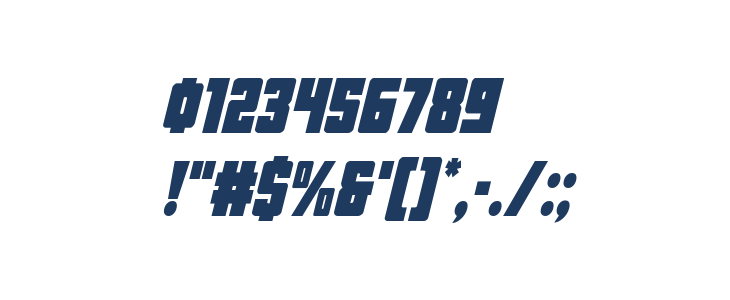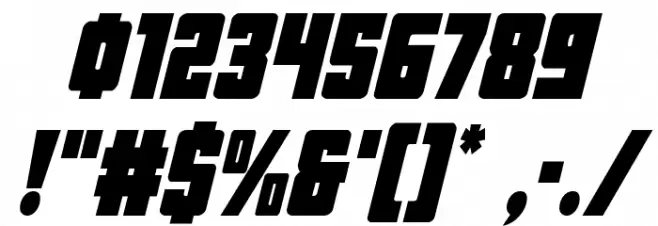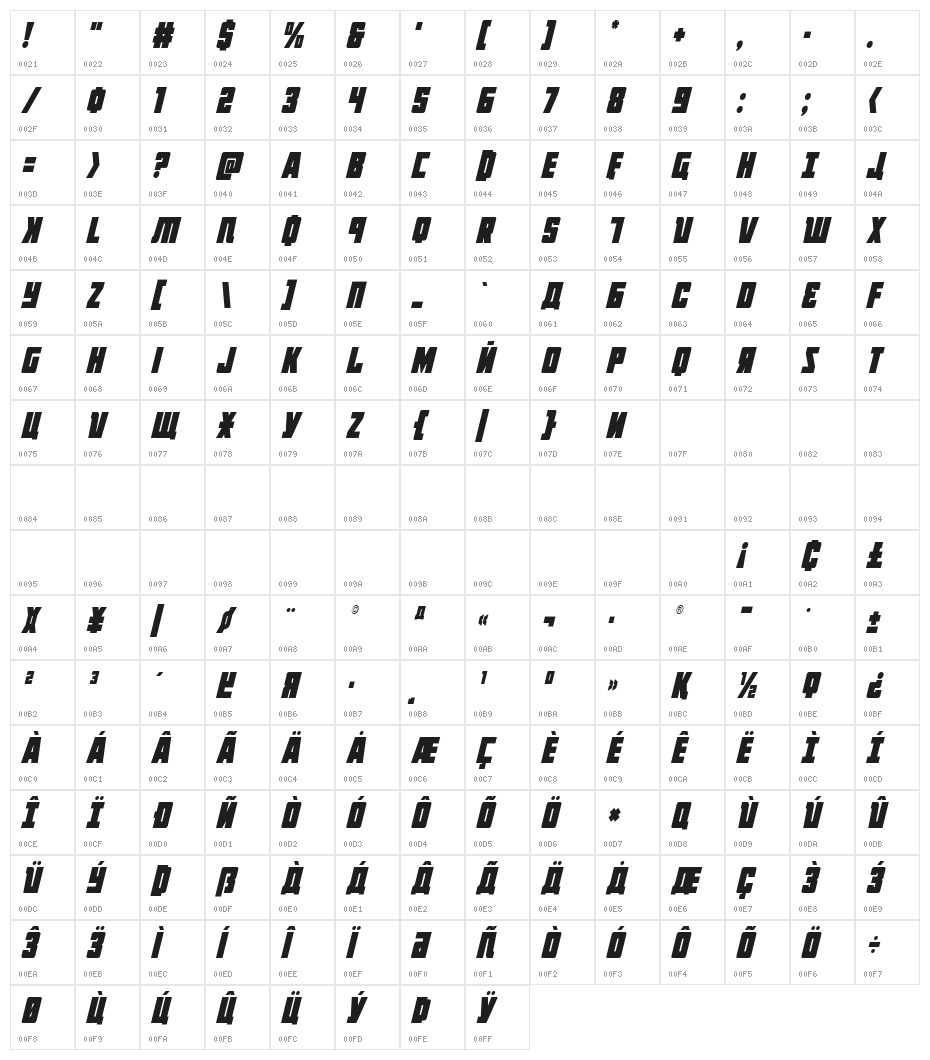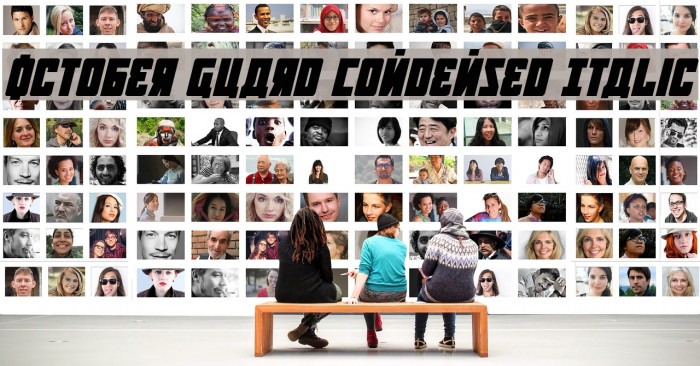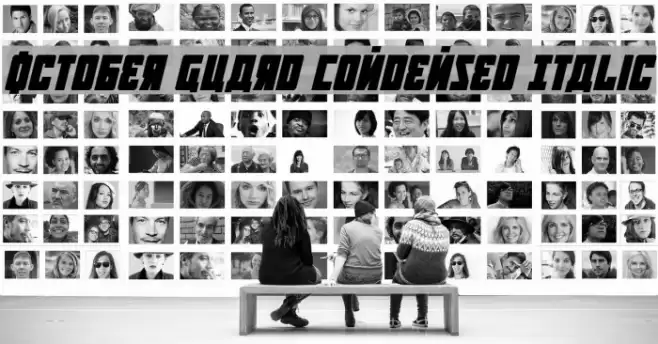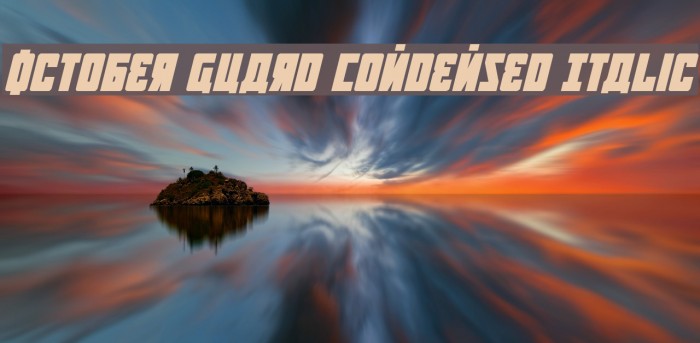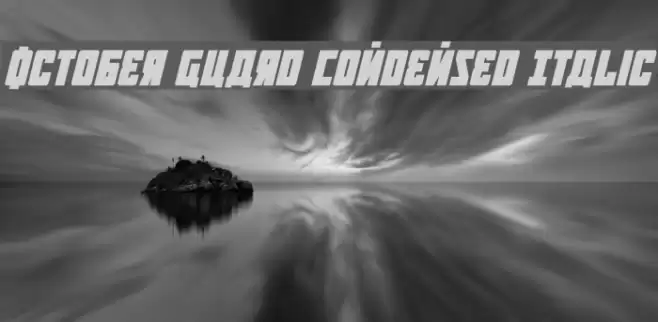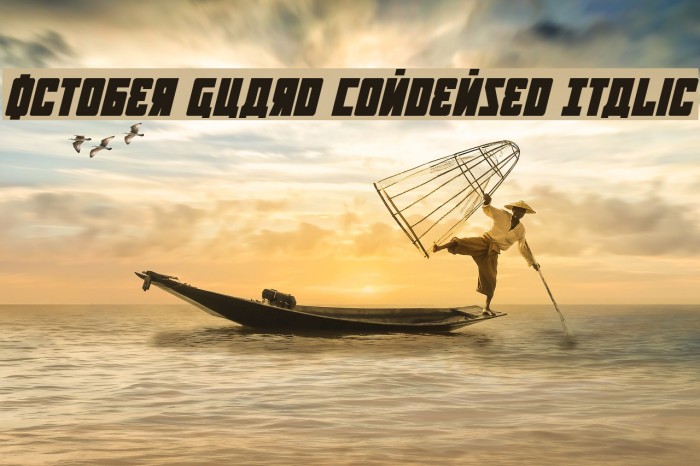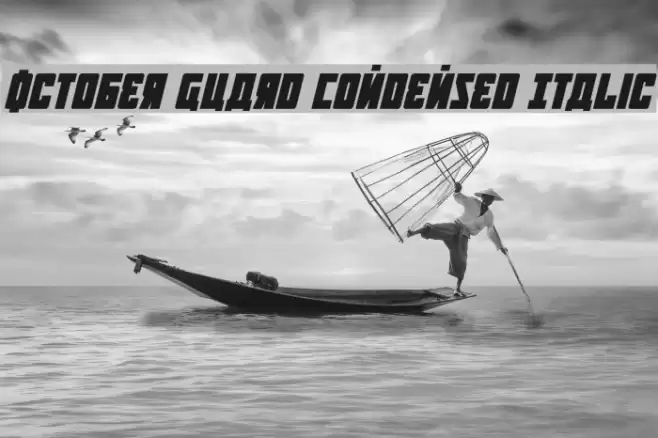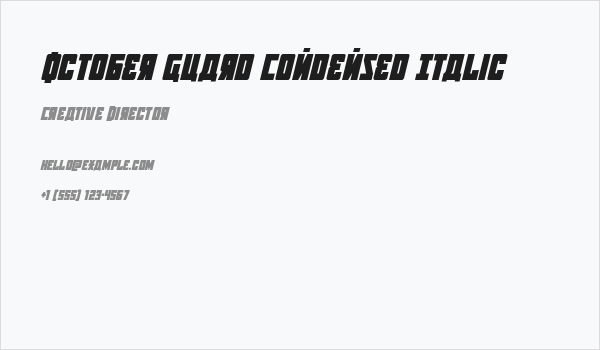
October Guard Condensed Italic Font
October Guard Condensed Italic Description
This font features a bold and dynamic style with a condensed and italicized form. The characters are designed with sharp angles and a strong presence, making them stand out prominently. The uppercase letters are particularly striking, with a sense of movement and energy. The numbers and special characters maintain the same bold and angular design, ensuring consistency across all elements. This font's condensed nature allows for efficient use of space, while the italic slant adds a touch of modernity and flair.